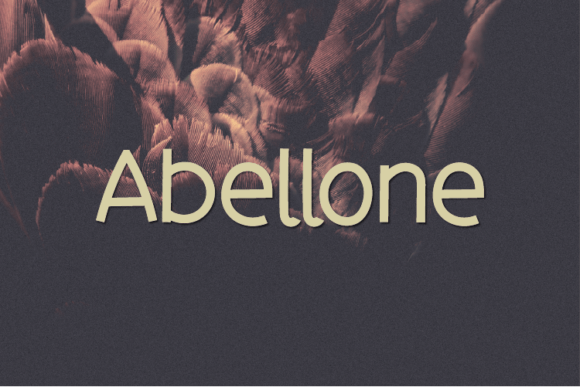
Embark on a captivating journey into the world of typography with Abellone Font, a sans serif masterpiece crafted by Hanna Bie. Abellone's allure lies in its untamed beauty, born from the preservation of every node in each character's indentation. This unique characteristic grants Abellone an organic, hand-lettered charm that effortlessly captivates the senses.
With Abellone Font as your creative companion, unleash your inner artist and transform ordinary designs into extraordinary expressions. Its natural flow and distinct personality make it the perfect choice for crafting heartfelt quotes, captivating notes, and eye-catching tees that speak volumes. Elevate your designs to new heights and create products that resonate with your audience.
Step into the realm of creativity with Abellone Font. Its versatility extends beyond the digital realm, making it a versatile choice for a wide range of applications. From branding projects and marketing campaigns to social media graphics and website designs, Abellone effortlessly adapts to your vision, adding a touch of elegance and sophistication wherever it's used.
With Abellone Font, your designs will command attention, leaving a lasting impression on your audience. Its unique charm and natural aesthetic create a captivating visual experience that draws eyes and ignites imaginations. Abellone Font is more than just a font; it's an invitation to unleash your creativity and make a bold statement.